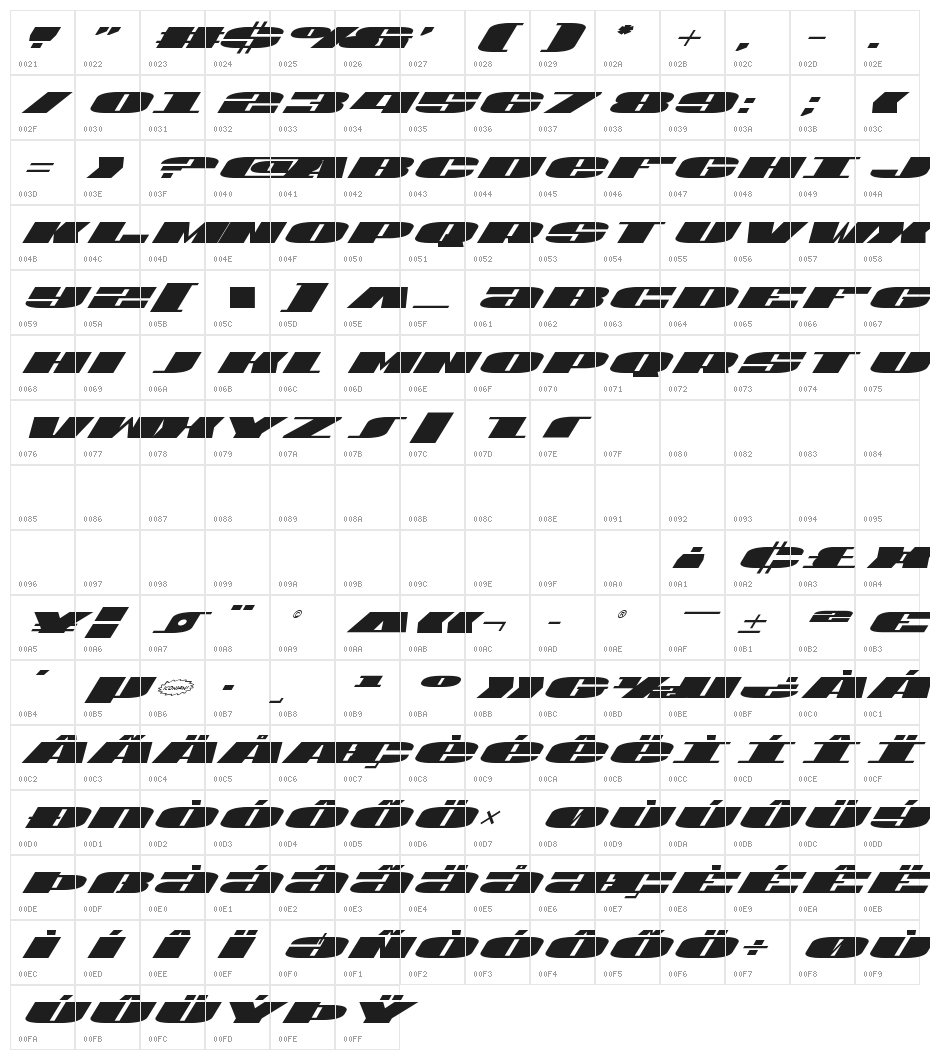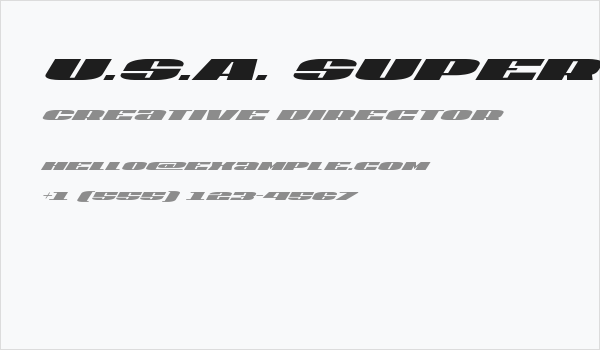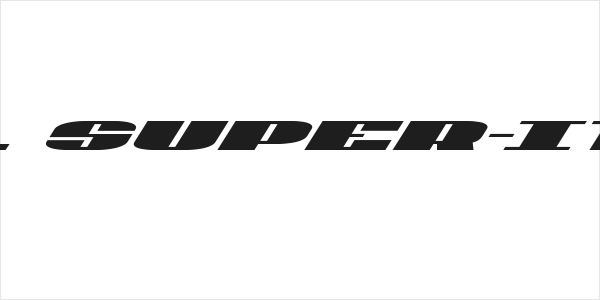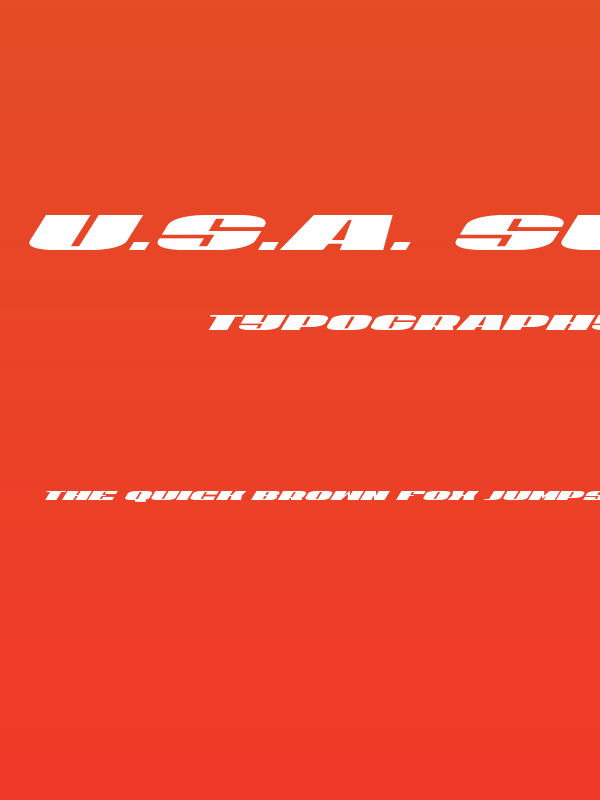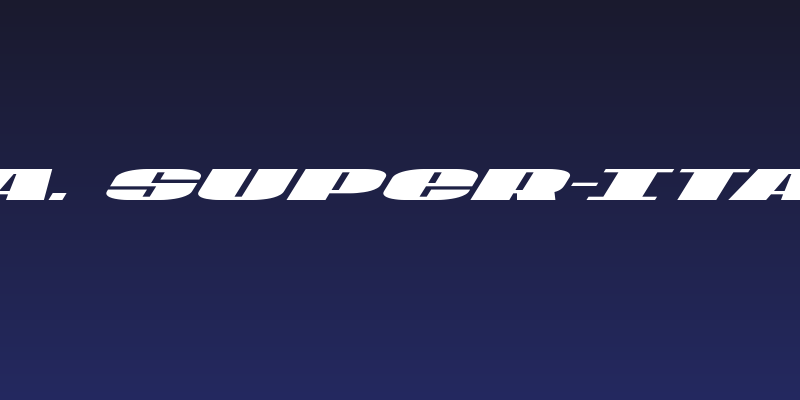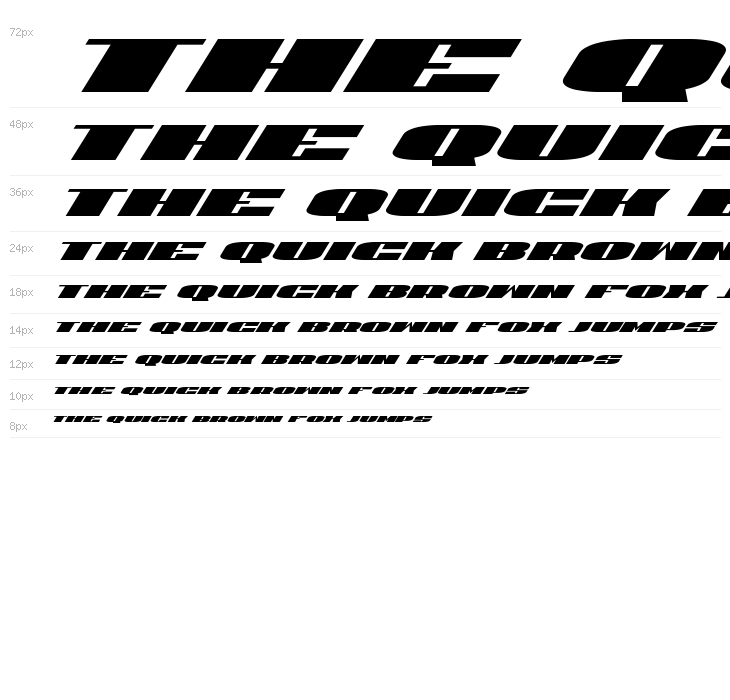
U.S.A. Super-Italic Font
U.S.A. Super-Italic Description
This font features a bold and dynamic italic style with a strong forward slant, giving it a sense of speed and movement. The characters are wide and robust, with a high contrast between thick and thin strokes, enhancing its bold appearance. The uppercase and lowercase letters maintain a consistent style, with sharp angles and clean lines that contribute to its modern and energetic look. The numbers and special characters are designed to match the overall aesthetic, making it suitable for impactful and attention-grabbing designs.
| Proposed Projects | Ideal for sports branding, automotive advertisements, dynamic posters, and any project requiring a sense of speed and energy. |